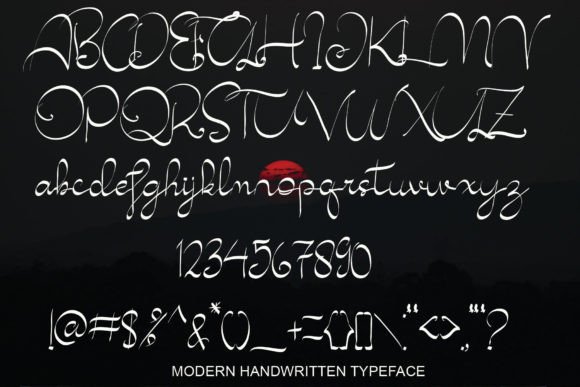
About Gakimgatdha Font
Gakimgatdha was carefully written by hand using a tablet. It is perfect for websites, wedding invitations, business cards, signatures, and advertisements, be it product advertisements or other advertisements. Even though it looks simple, this font still looks cool and stylish.